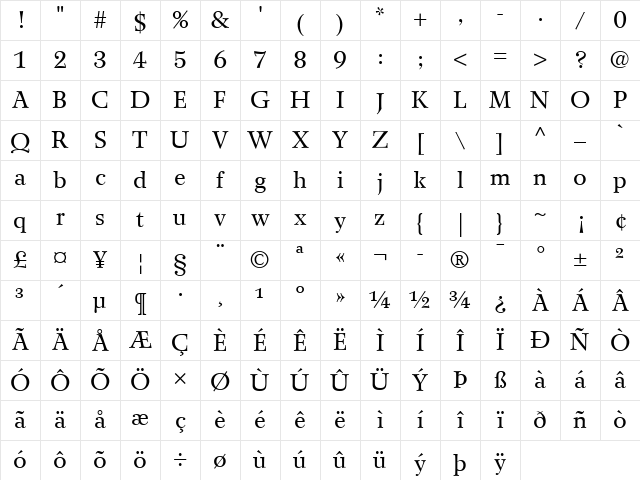
Wilke LT Roman Regular
Design Context for Wilke LT Roman
Wilke LT Roman is a composed and adaptable typeface that performs quietly and consistently across a wide range of design contexts. Its slender proportions lend an understated elegance to any composition.